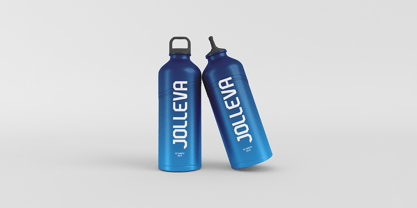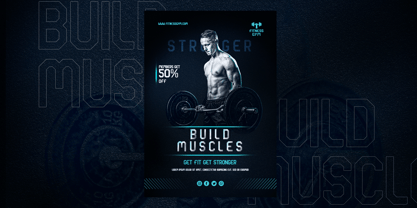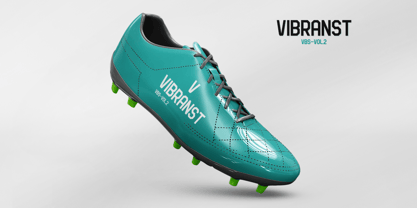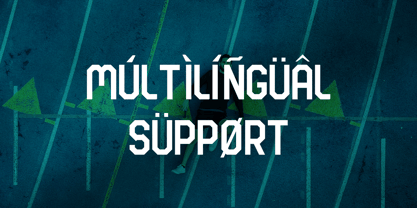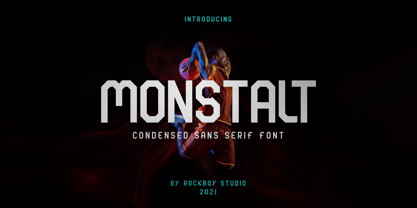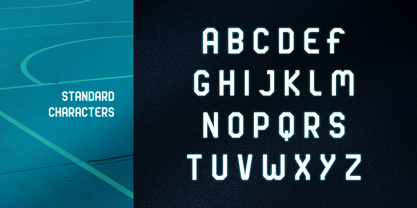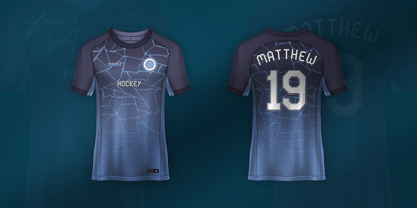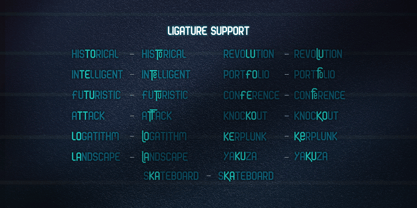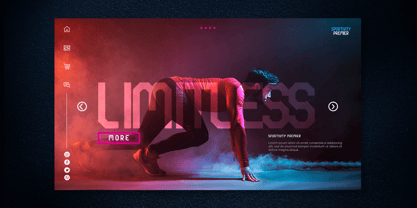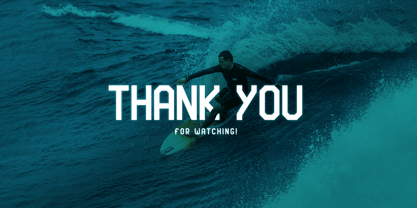
Monstalt
The Monstalt Font Family was designed by Hayinah and published by Rockboys Studio. Monstalt contains 1 styles. More about this family
Monstalt is an elegant and bold display font. It can easily match your various projects, so add it to your creative ideas and watch how it makes them stand out.